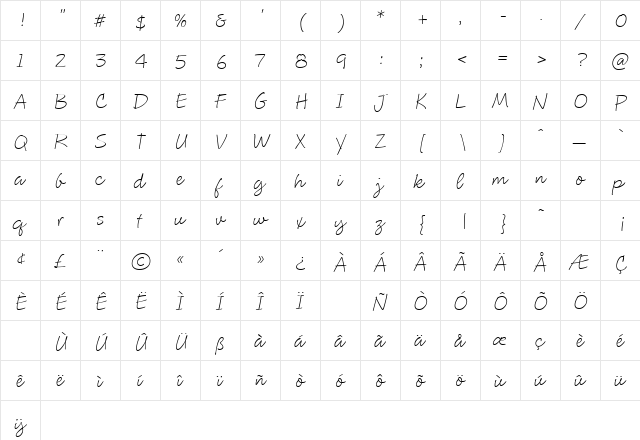
GE Martine Script Normal
Design Context for GE Martine Script Typeface
GE Martine Script brings a calligraphic fluidity to the page — its connecting strokes and expressive curves give it an unmistakably human quality.
Font Pairing: Combine GE Martine Script with a simple geometric sans for maximum contrast — the tension between flowing curves and clean structure is a classic typographic pairing.
Pro Tip: Use GE Martine Script for short runs of text — names, titles, or taglines. Extended body copy in script faces tires the eye quickly.